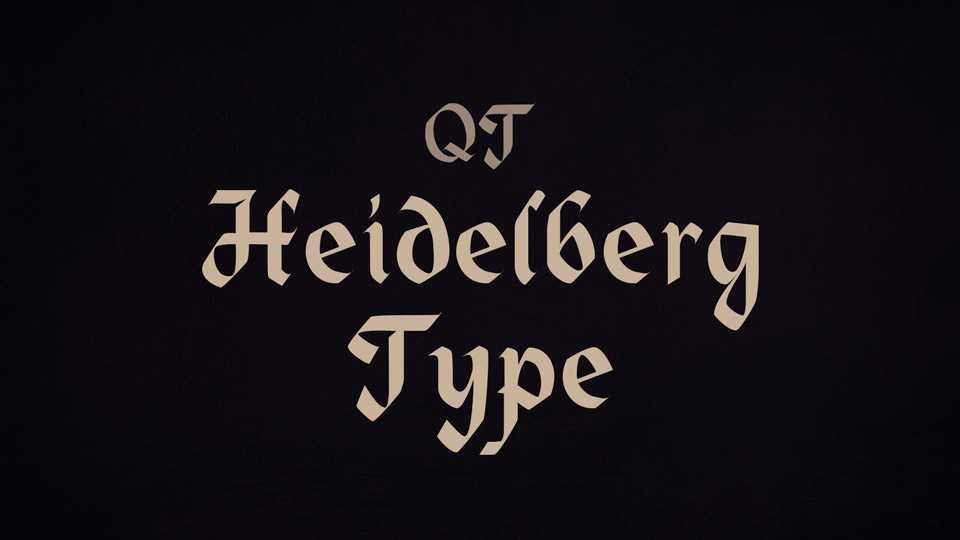
Download QT Heidelberg Type font, a calligraphic script with simple lines that demonstrate its pen-drawn origins. Heidelberg Type is well-suited to formal applications such as book titles, advertising, and magazine work.